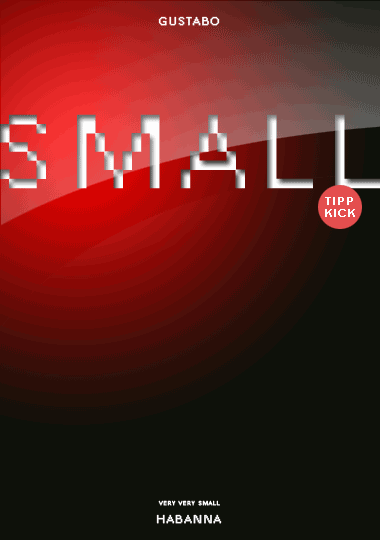
gustabo
a simple and balanced pixel-font
artefacts resulted from gif-conversion
Quite relaxed pixel font with short ascenders and descenders. The sample text looks well balanced, legible at PXL view, with no visible spacing issues. 10/10
Yeah I'm addicted to that spacing issue ... I took the Capitals from Roman Antiqua (redrawn and completed by Jan Tschichold) to learn about the letter width (and for simplification I dropped down the Serifs).